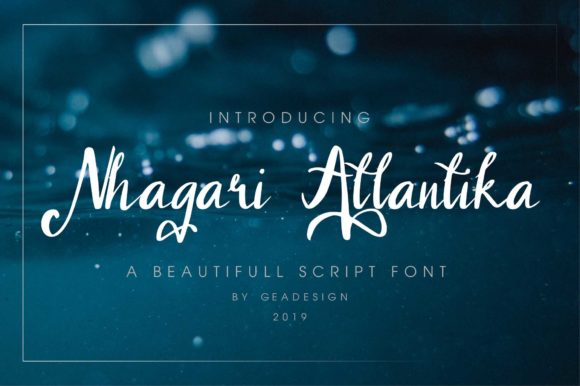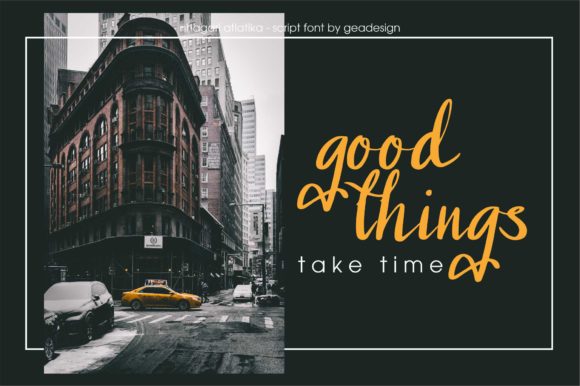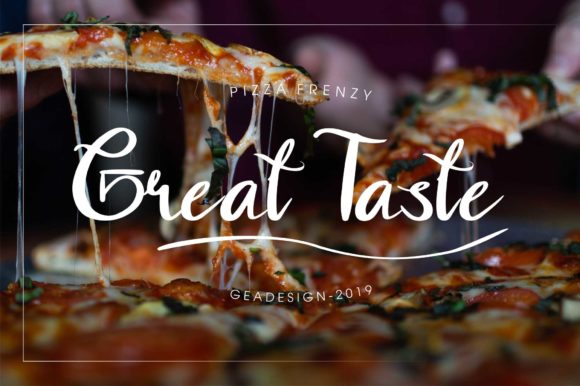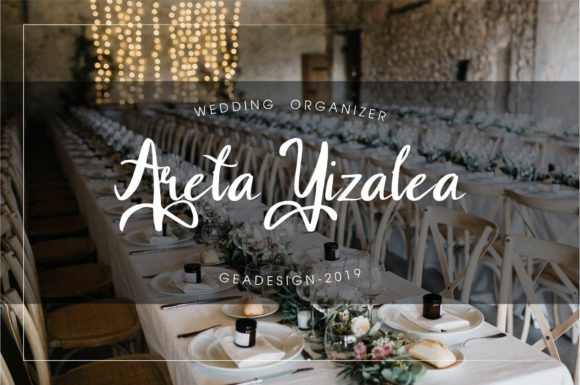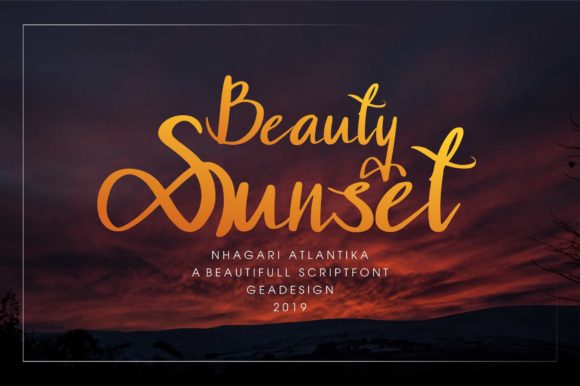
Nhagari Atlantika Font
About Nhagari Atlantika Font
The Nhagari Atlantika is a beautiful handwritten script font. Its look casual, beautiful and is perfect for wedding designs, branding, quotes, and much more.